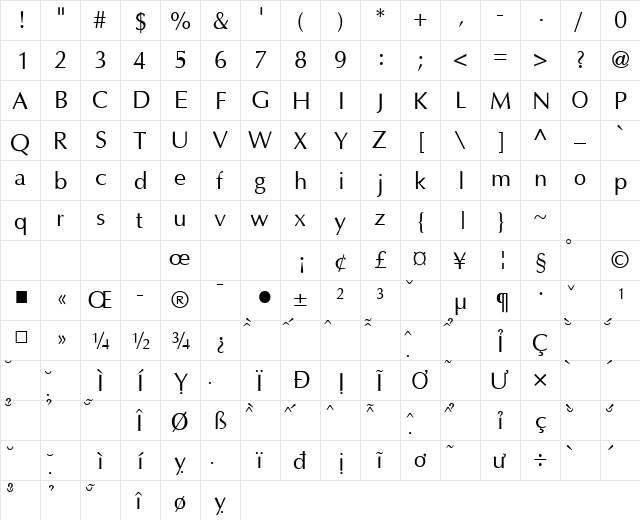
VNI-Aptima Normal Font Preview
VNI-Aptima Normal
Design Context for VNI-Aptima Typeface
VNI-Aptima offers clean, dependable letterforms without strong stylistic allegiance, making it a practical choice for designers who need flexibility.